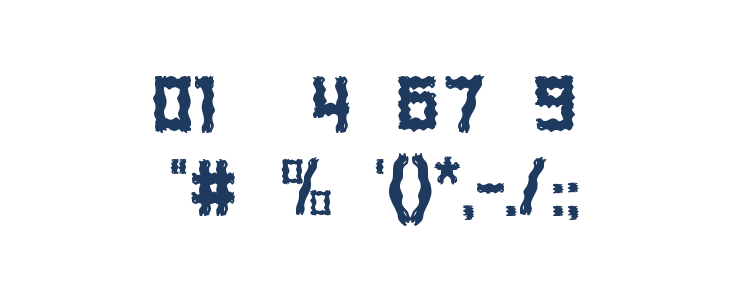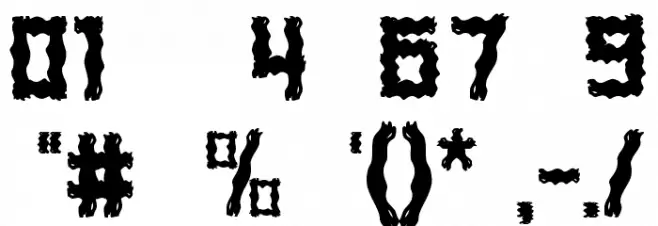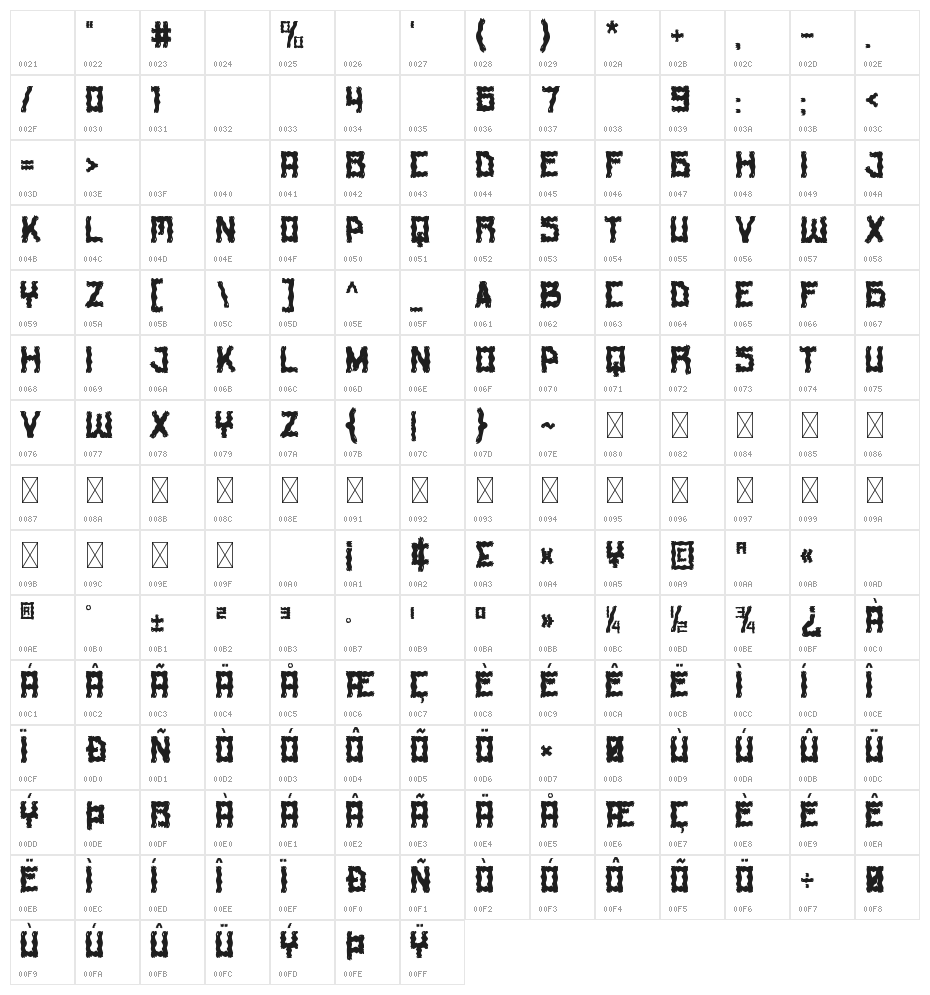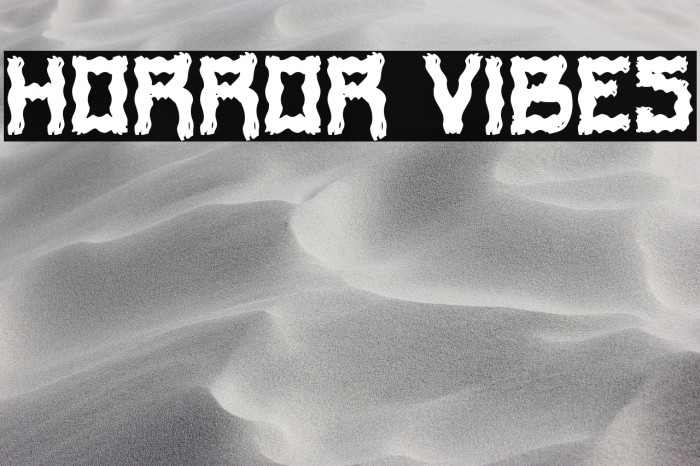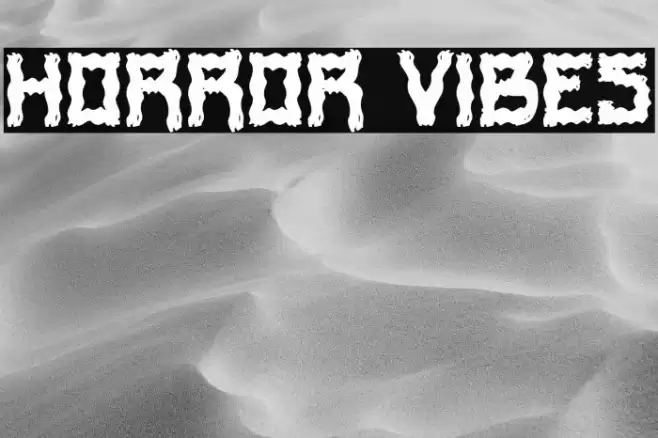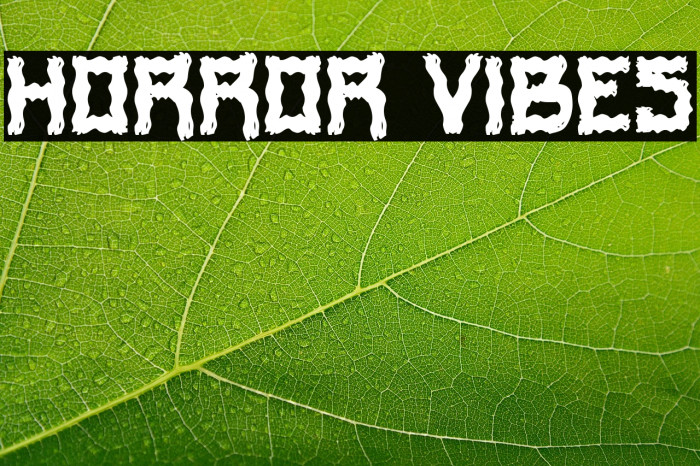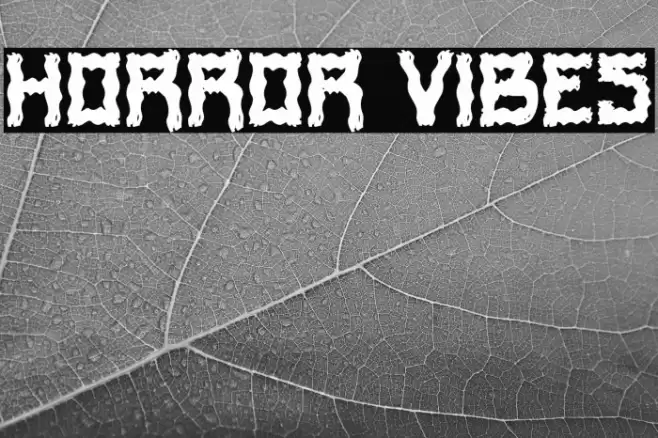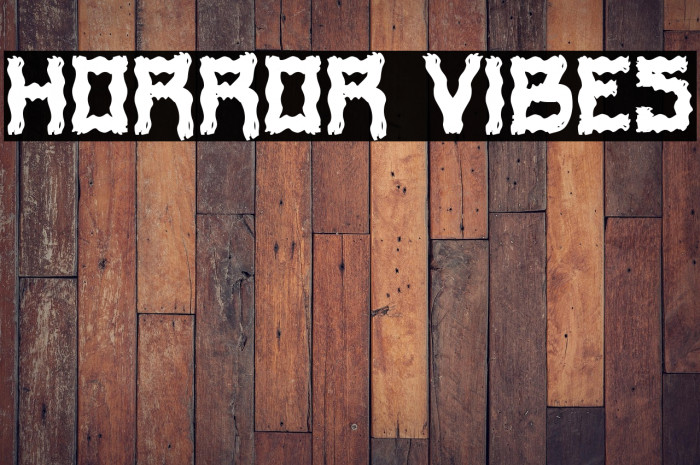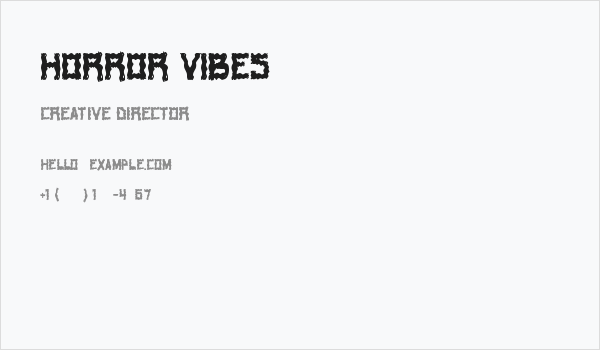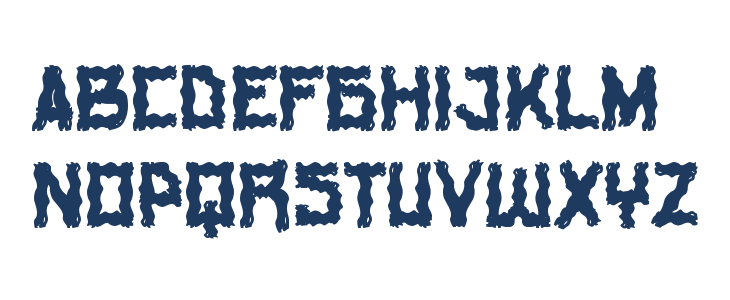
Horror Vibes Font
Horror Vibes Description
This font exudes a chilling and eerie vibe, perfect for horror-themed projects. The letters appear as if they are melting or dripping, creating a sense of unease and suspense. Each character is uniquely distorted, adding to the unsettling aesthetic. The bold and irregular strokes give it a strong presence, making it ideal for grabbing attention. The font maintains a consistent style across uppercase, lowercase, numbers, and special characters, ensuring versatility in its application. Its distinctive appearance makes it stand out, especially in designs that aim to evoke fear or mystery.
| Proposed Projects | Perfect for Halloween posters, horror movie titles, haunted house flyers, and spooky event invitations. |